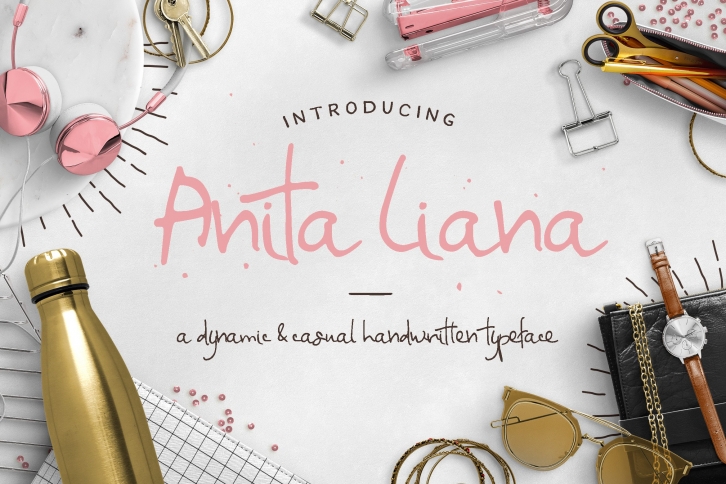
Anita Liana is a casual handwritten typeface that you can use for multiple purpose: blog, logo, title, poster, wedding cards & so forth, you decide!
Anita Liana comes with accented glyphs for international language (check preview images to see which glyphs are included) also a ligature feature, allows you to create different look to your design.
Anita Liana Features:
• Natural Pen Stroke
• Ligature Feature
• Hand Drawn Font
• Accented Glyphs